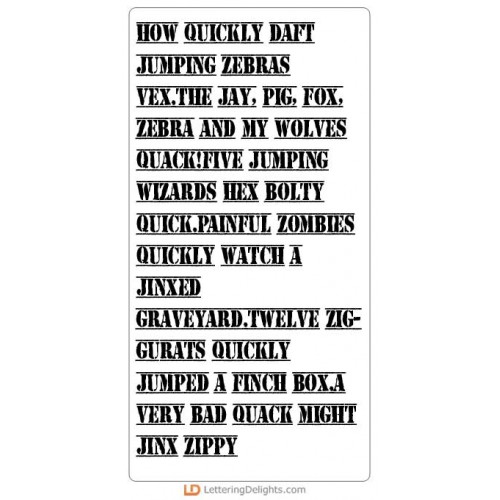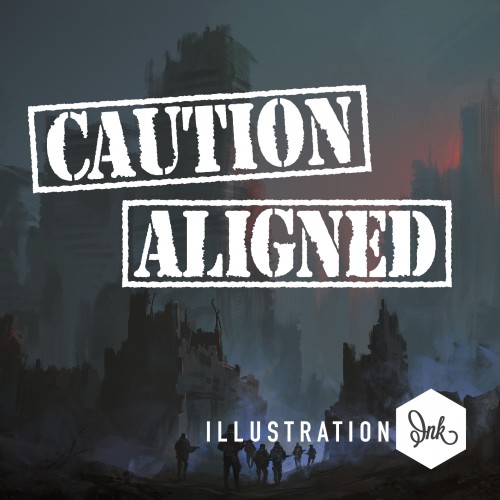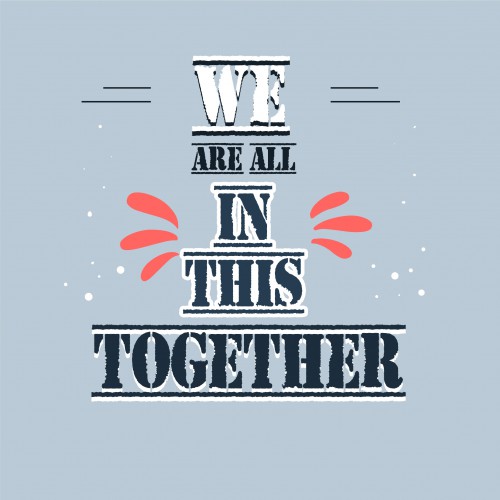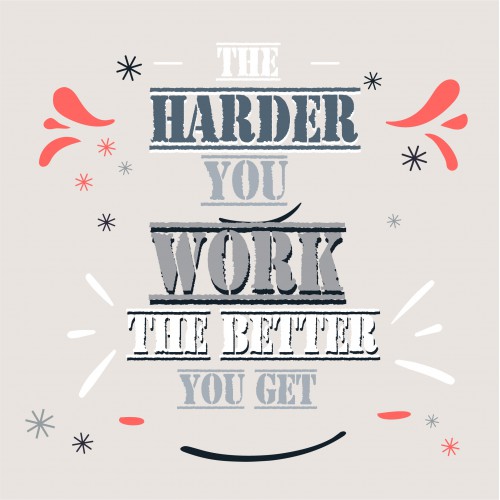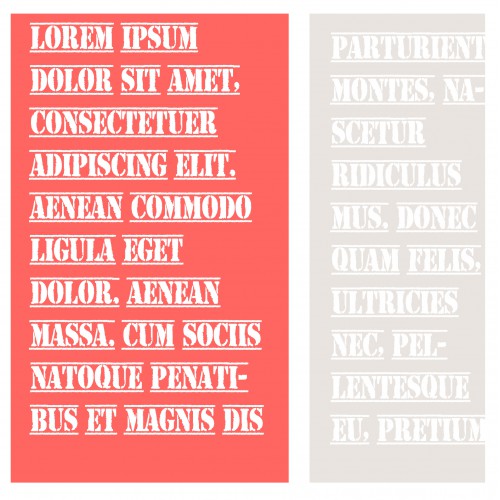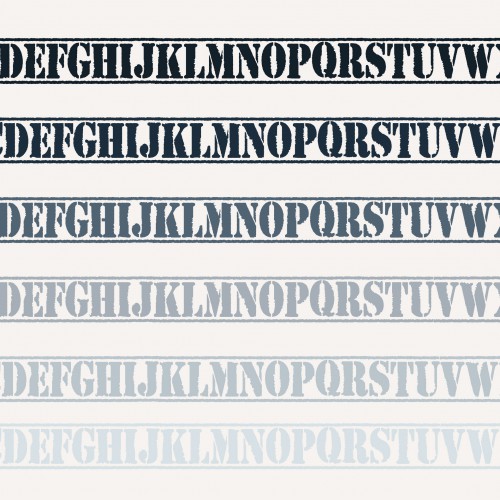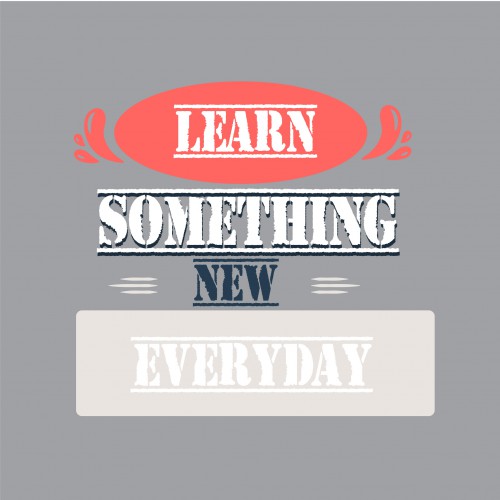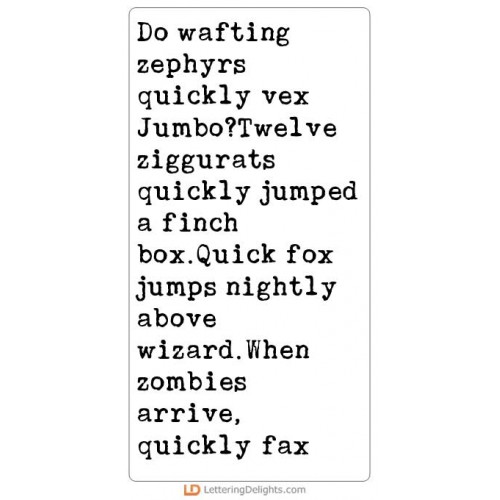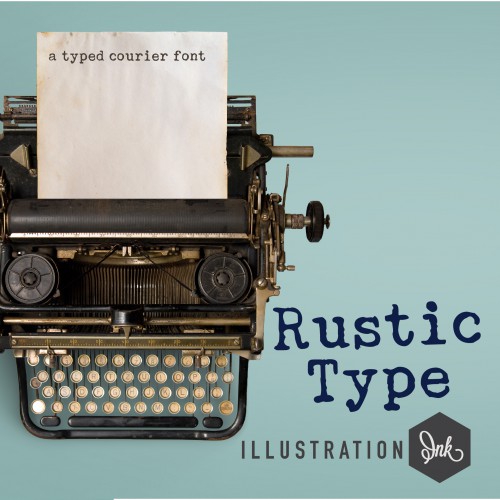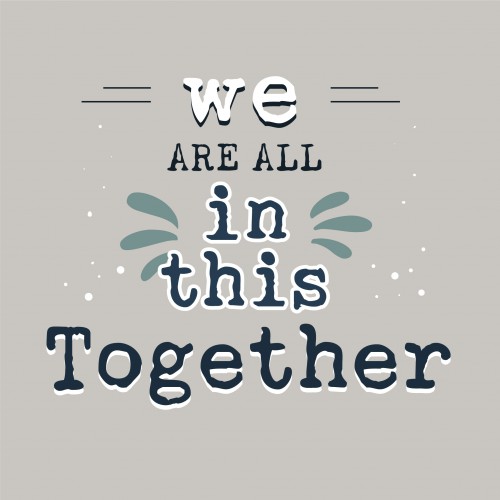
Mission Impossible - Big Bundle
This fun collection features spy themed images, frames and more! Perfect for parties, crafts, gifts, camps, decor, scrap book pages, planner stickers and more!
SNF Caution Aligned - FN
This textured serif font has lines above and below each character. To finish off boxing it up, use t..
ZP Rustic Type - FN
This old-school type-written courier font is textured and rustic...
ZP Rustic Type Bold - FN
This old-school type-written courier font is textured and rustic...
ZP Duplicity - FN
This simple sans serif font has a bit of texture and a line throughout each glyph...
DB Mission Impossible - DB
This fun doodlebat font features 26 spy themed images perfect for parties, crafts, gifts, camps, dec..
DB Mission Impossible - Too - DB
This fun doodlebat font features 26 spy themed images including frames, perfect for parties, crafts,..
Mission Impossible - GS
This fun graphic set features 26 spy themed images perfect for parties, crafts, gifts, camps, decor,..
Mission Impossible - CS
This fun cuttable graphic set features 26 spy themed images perfect for parties, crafts, gifts, camp..
Mission Impossible - Too - GS
This fun graphic set features 26 spy themed images including frames, perfect for parties, crafts, gi..
Mission Impossible - Too - CS
This fun cuttable graphic set features 26 spy themed images including frames, perfect for parties, c..
Mission Impossible - Disguise Kit - CP
Create the utimate spy disguise with this fun and easy cut project set...
Mission Impossible - AL
This fun alphabet coordinates with our Mission Impossible Collection...
Mission Impossible - PP
This fun paper pack coordinates with our Mission Impossible Collection...